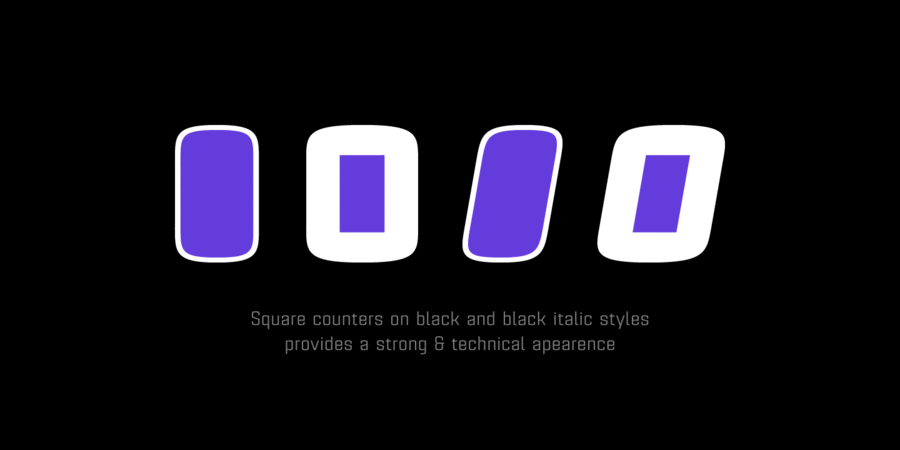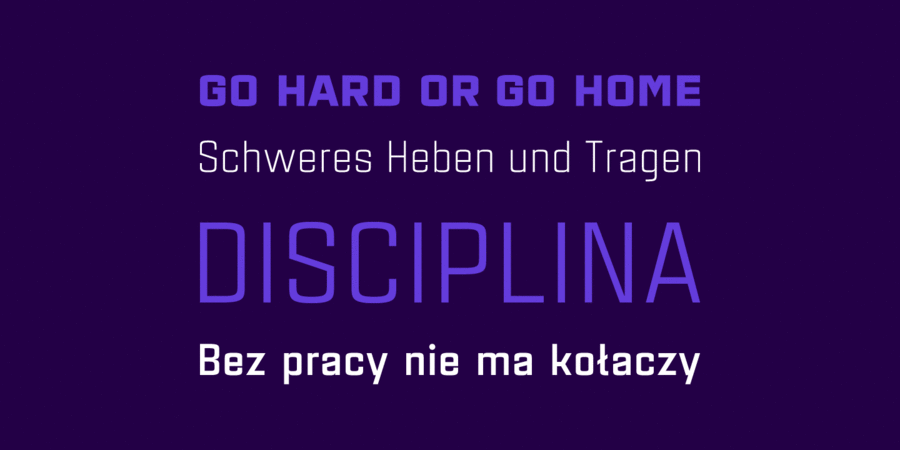
About EstrictaIt is a sans serif typeface with a geometrical and mechanic appearence, its sharp, angular edges provide a strong and solid design. It has been conceived to be most suitable for short and middle length text blocks, as well as on all sized headlines. Estricta consists of 12 styles. Each containing glyph coverage for many languages based on Latin and Cyrillic, small caps and ligatures. The font family has been designed for Graviton Font Foundry by Pablo Balcells in 2017.
Associations for font family EstrictaTypeface personality and character:
neon, accurate, futuristic, flat, rectangular, thin, static, logical, cold, easy, urban, modern, engineering, urbanistic, schematic, glass, fragile, transparent, calm, wire, crisp, cutting, sharp, stable, space, machine, solid, serious, technogenic, practical, pragmatic, technically, high-quality, robust, reliable, strict, self-assured, architectural, convincing, strong, industrial, tough, ambitious, authoritative, motivating, automatic, steel, business, monotone, artificial, important, military, iron, workman, responsible, rigid, severe, heavy, loud, hot, monumental
sci-fi, gadget, device, scheme, architecture, engineer, city, electronics, science, IT specialist, IT, technology, space, design, equipment, constructor, automation, astronomy, game, car, Shooter, action, urban studies, x-ray, computer game, industry, machine tool, tool, power station, energy industry, factory, fitness equipment, repairs, blockbuster, thriller, rocket, satellite, army, weapons, mechanical engineering, port, airsoft, construction, building, truck, trucker, steel-maker, motor, engine, railway carriage, railway, robot, football, sport, workman, selfie, cinema, fuel, oil Typeface associated with age: